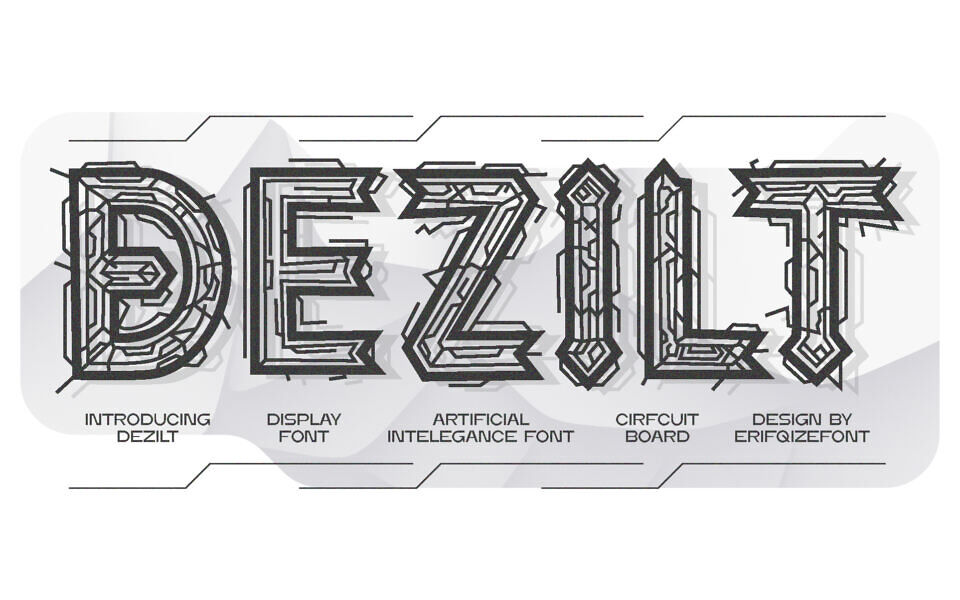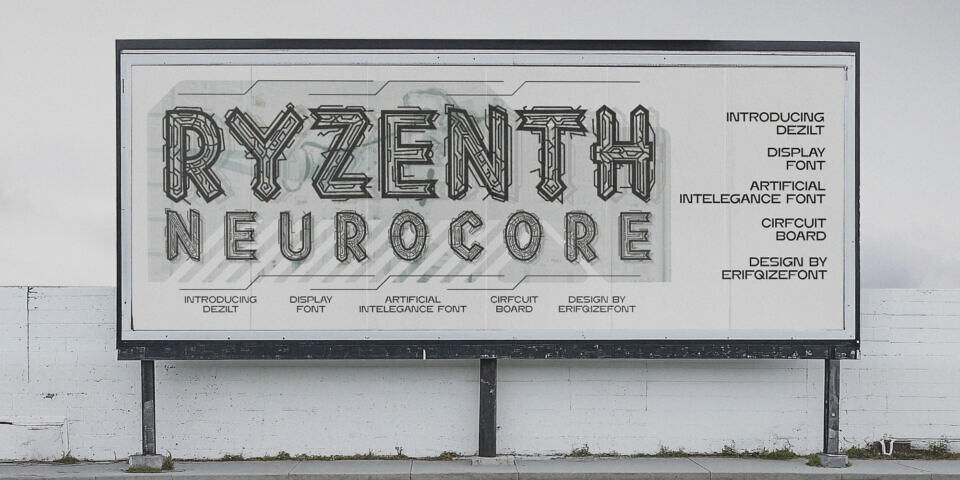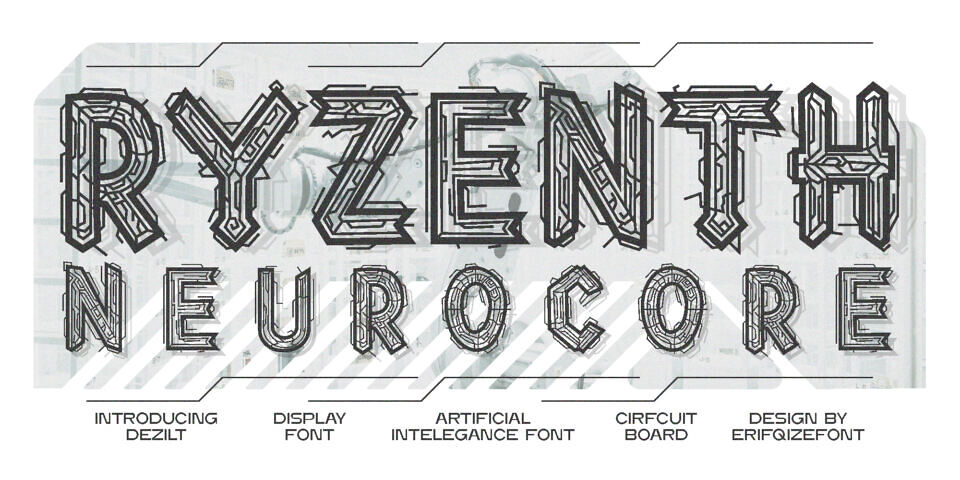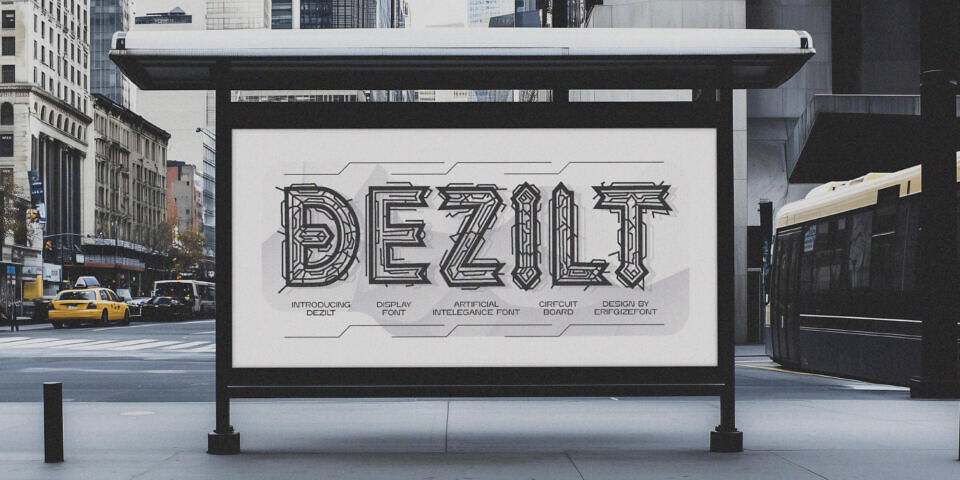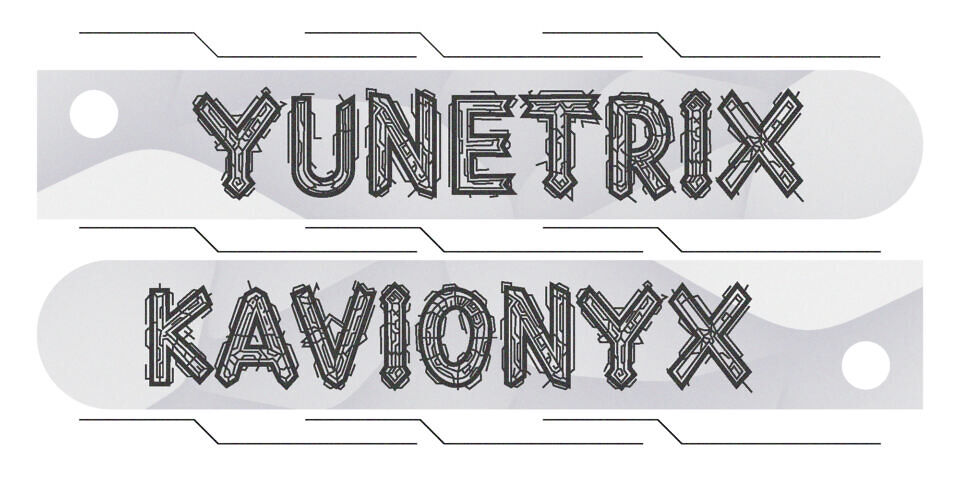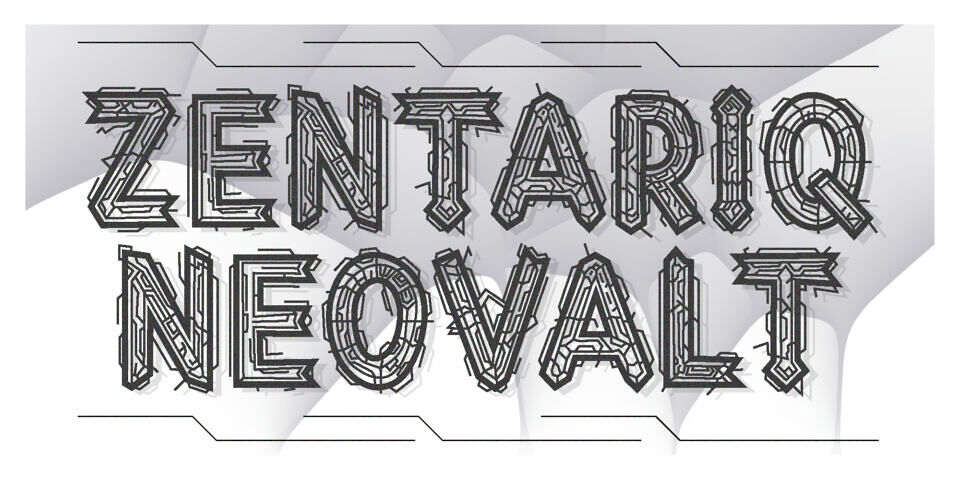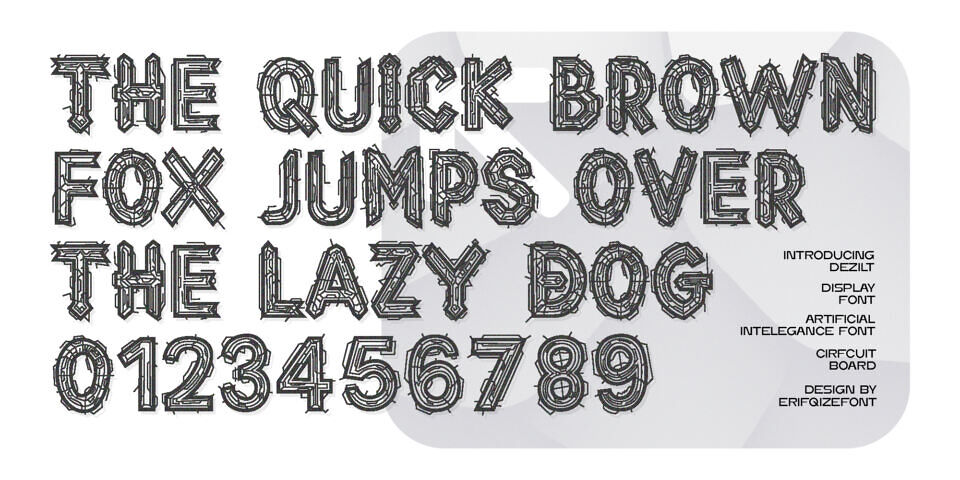
DEZILT is a bold and experimental display font that draws inspiration from artificial intelligence, circuit board patterns, and cybernetic aesthetics. Each letter is intricately designed with sharp mechanical strokes, layered outlines, and detailed inner linework that mimics the complexity of electronic systems.
Perfect for projects that demand attention and futuristic flair, DEZILT shines in sci-fi posters, tech event branding, game UI designs, EDM or synthwave album covers, and AI-themed visuals.